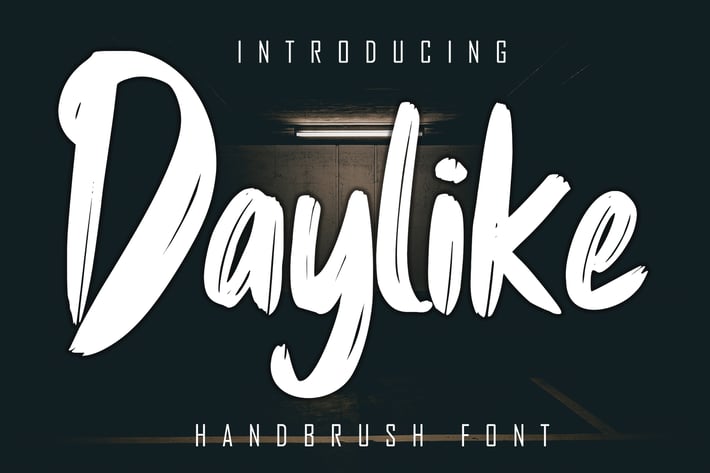
Daylike Handbrush Font
Daylike Handbrush is a dry handbrushed font, designed to combine perfectly and allows you to create stunning handwriting quickly and easily. Ideal for logos, handwritten quotes, product packaging, headers, posters, merchandise, social media & greeting cards.
+ Uppercase & Lowercase letters\
+ Numbering and Punctuations\
+ Multilingual Support\
+ Basic Latin Language Support (AÀÁÂÃÄÅCÇDÐEÈÉÊËIÌÍÎÏÑOØÒÓÔÕÖUÙÜÚÛWYÝŸÆß )